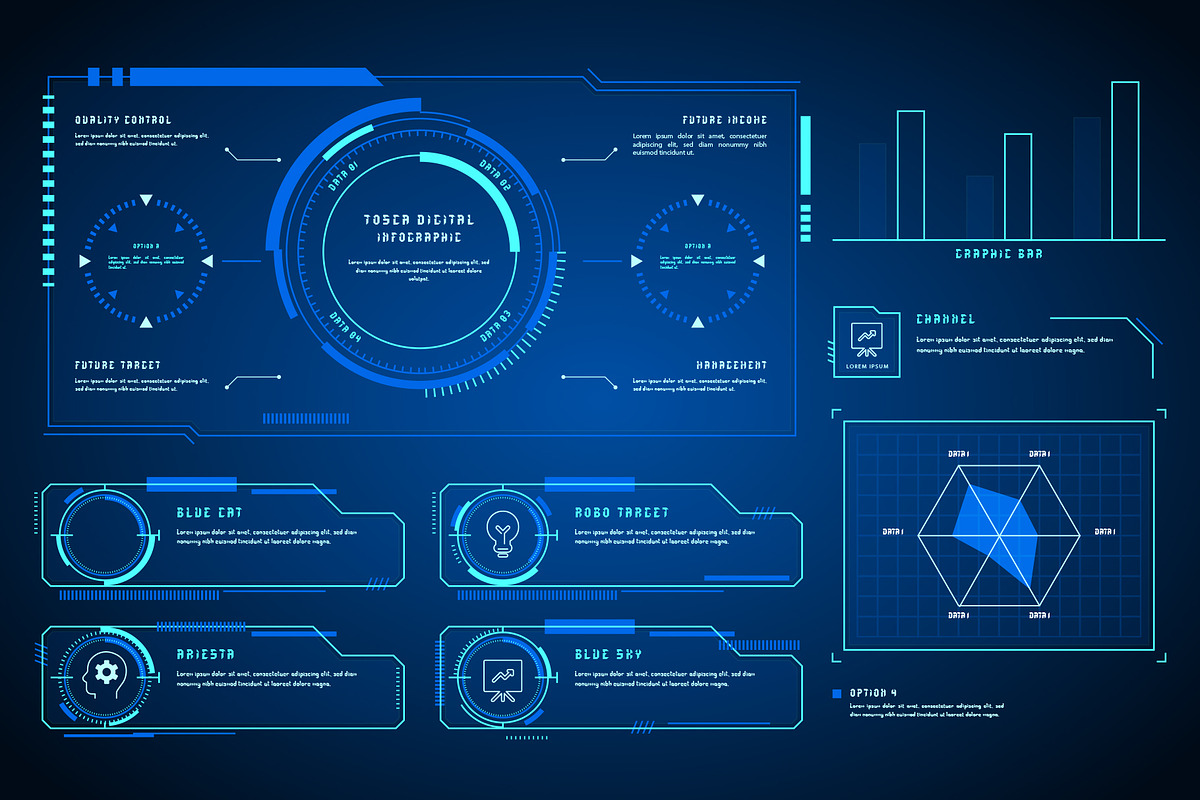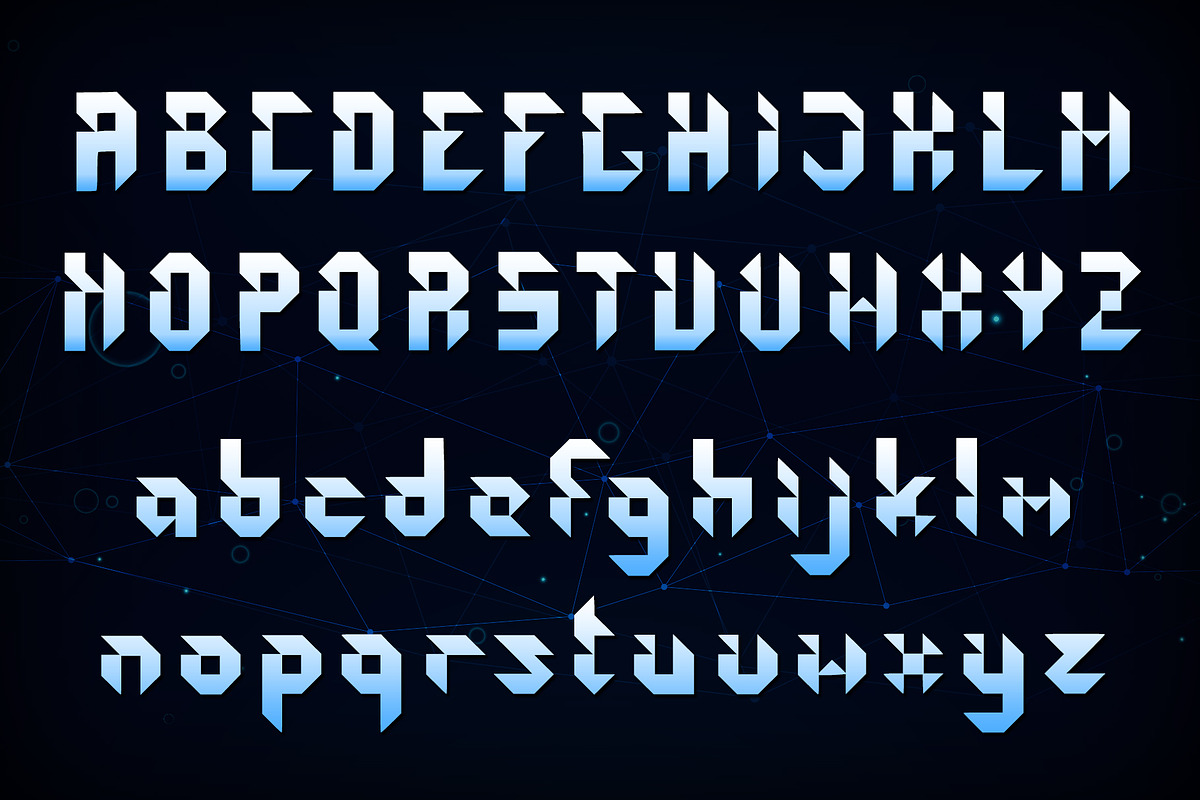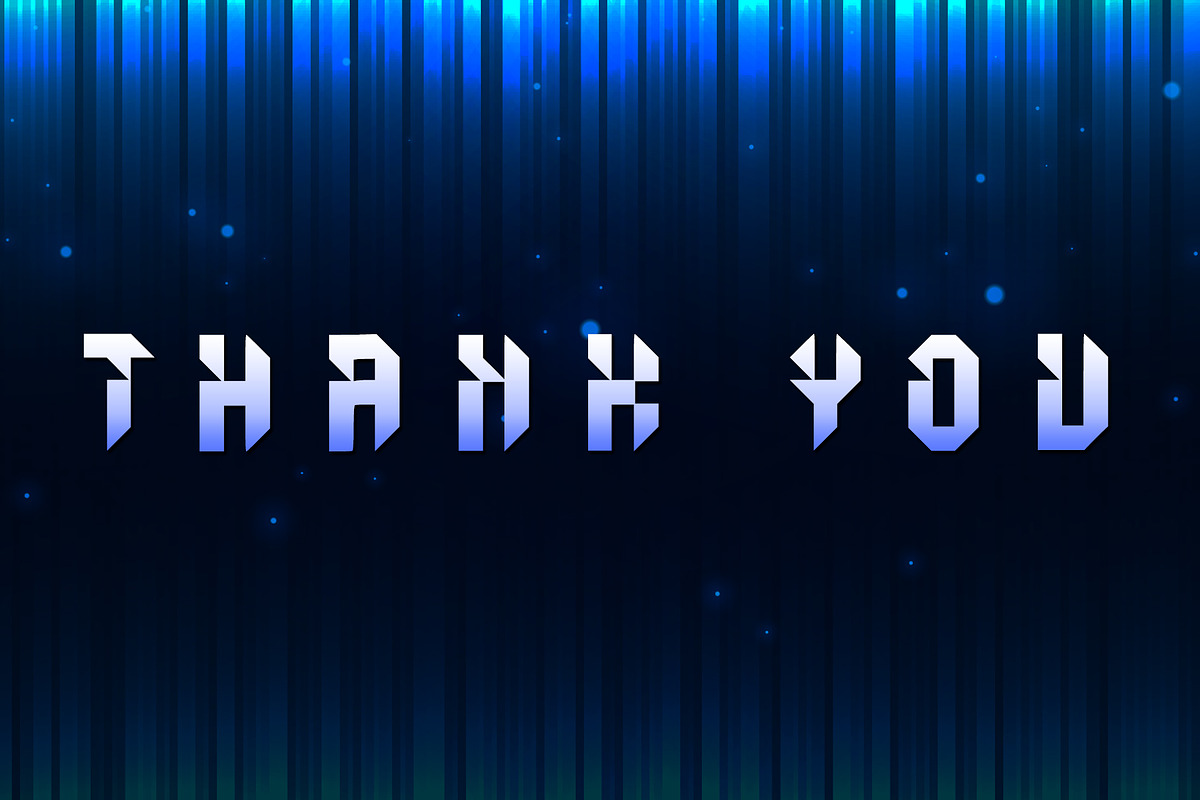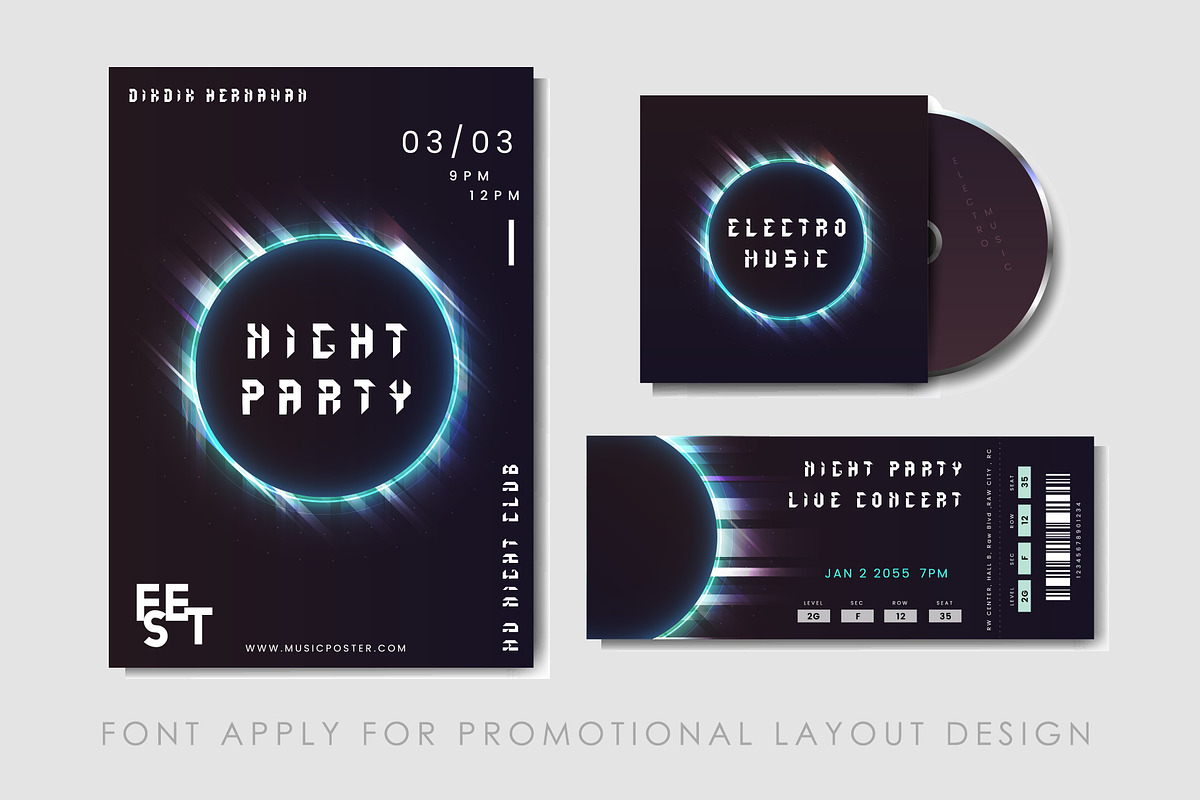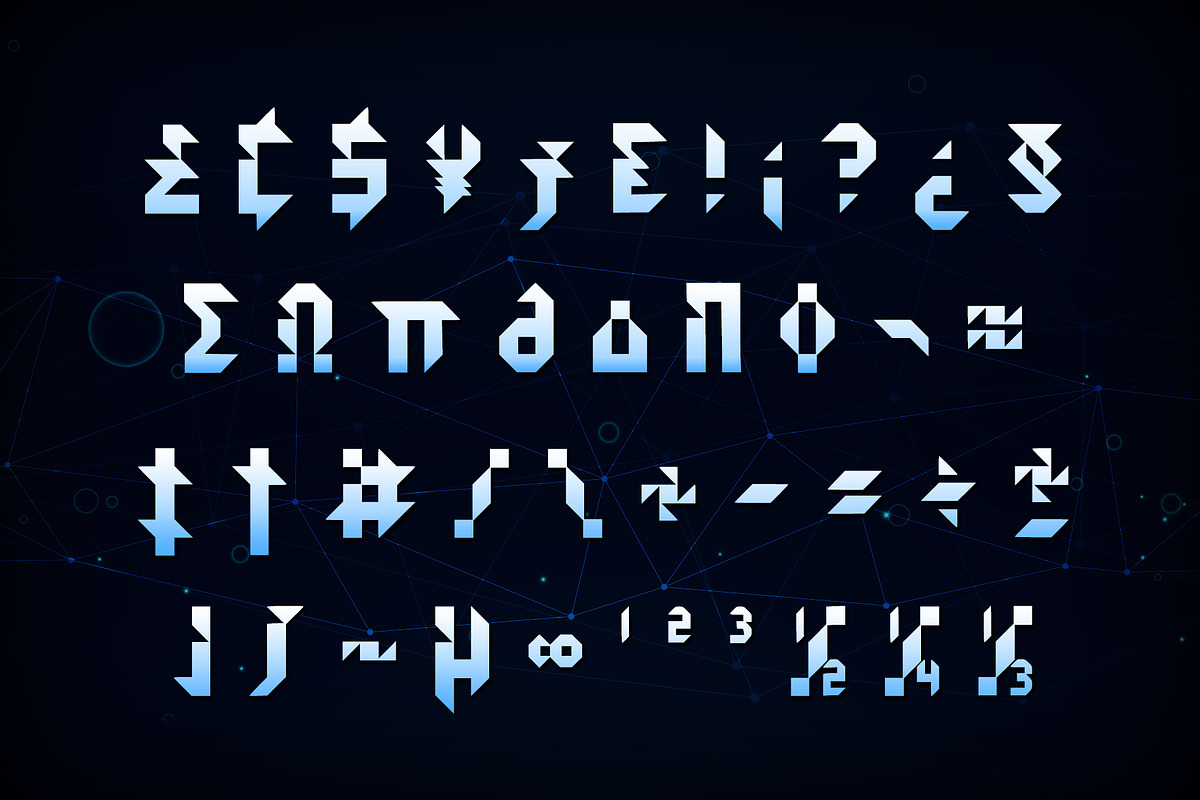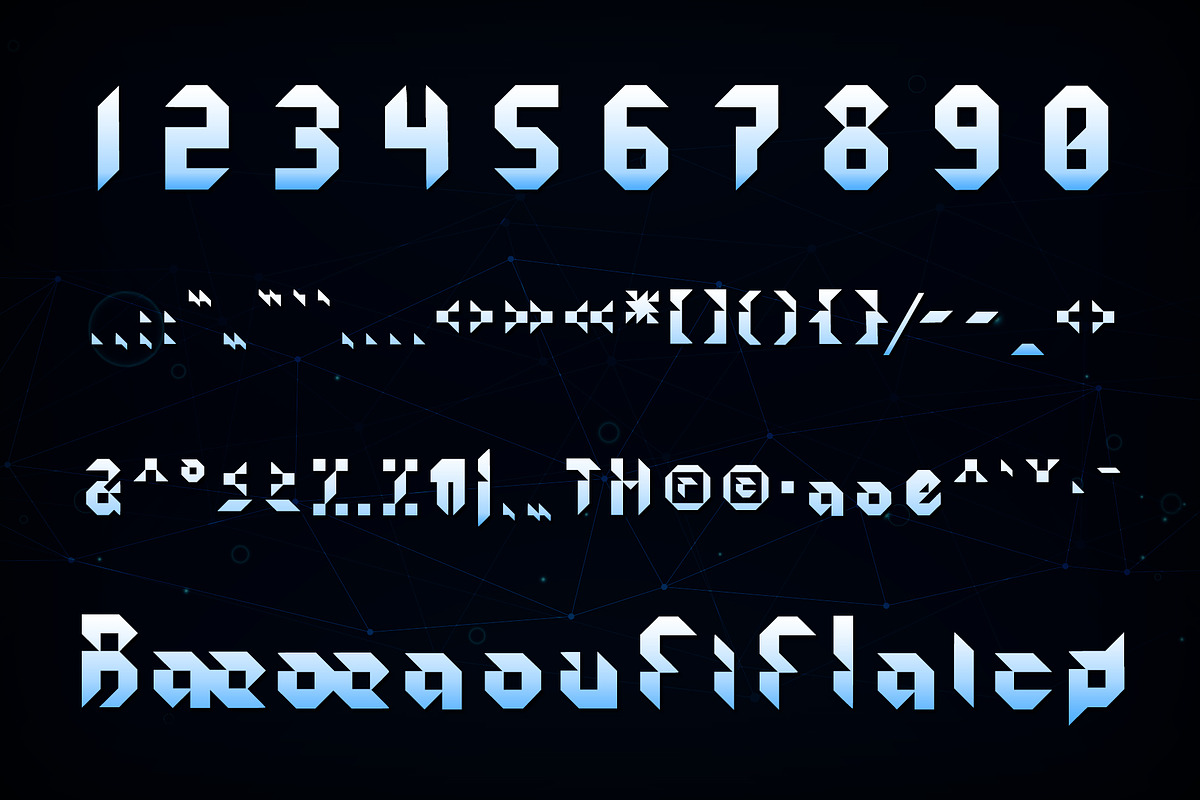
Kidshape | Futuristic Font
Kidshape A stylish futuristic font. Perfect for various design project, both printing and screen display, and is most suitable for modern design, technology, sci-fi, futuristic style, flat design and web design.